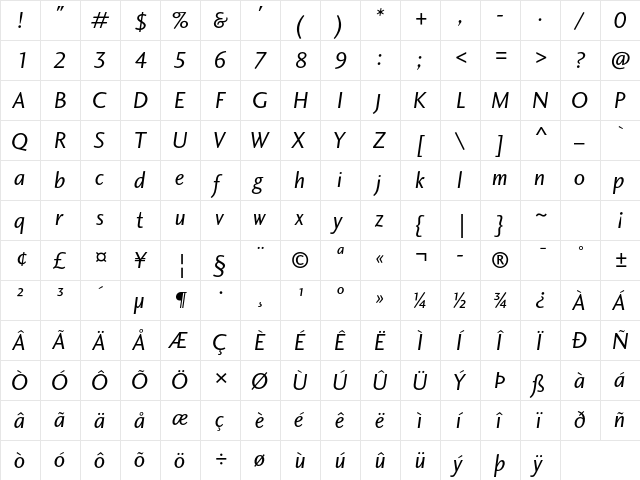
Charlotte Sans Std Book Italic
| Designer | Michael Gills |
Design Context for Charlotte Sans Std Typeface
Charlotte Sans Std offers clean, dependable letterforms without strong stylistic allegiance, making it a practical choice for designers who need flexibility. Its italic angle brings a sense of urgency and motion to the letterforms.
Pro Tip: Use Charlotte Sans Std for emphasis, pull quotes, and subheadings where its slanted energy can add rhythm to the layout.